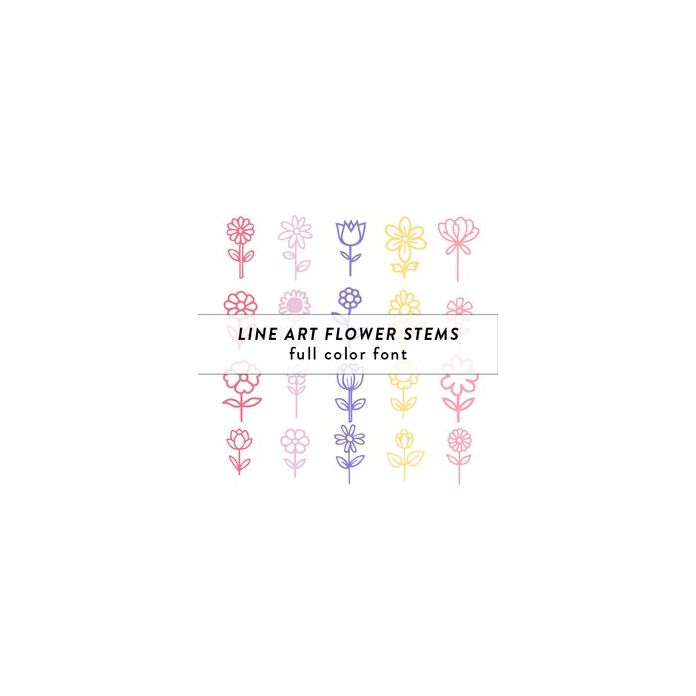
line art flower stems full color font
Color fonts will appear black if not used in a compatible program. This font type should be used with Silhouette Studio to appear in color. This is full color font contains 26 dainty floral shapes.